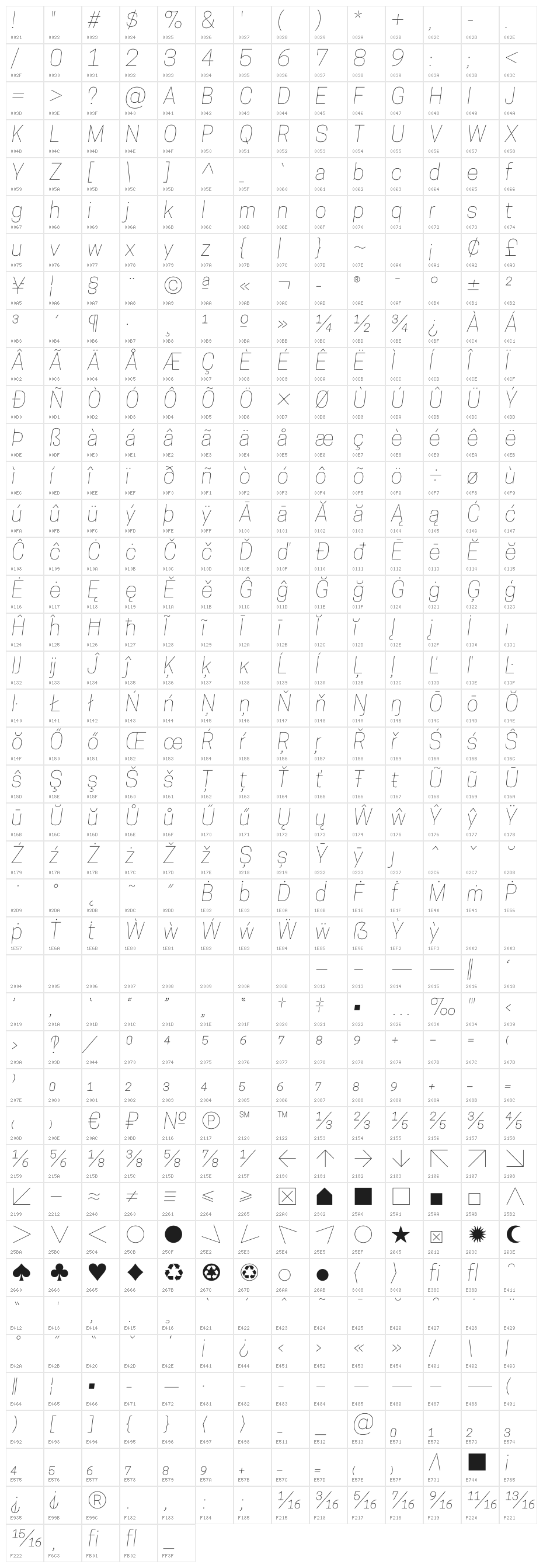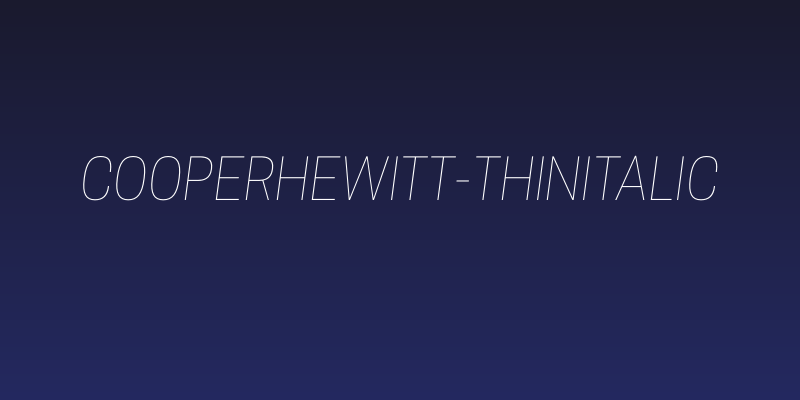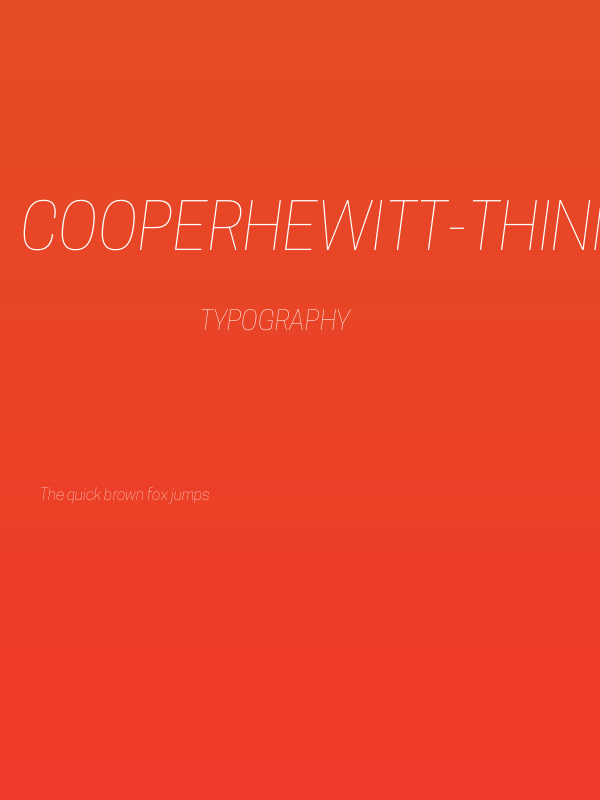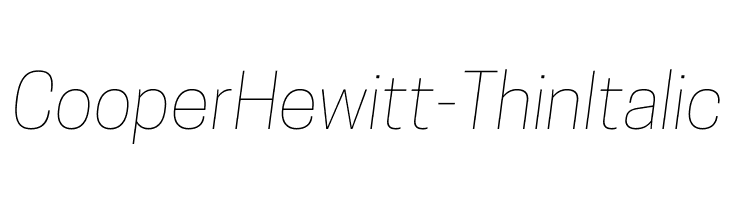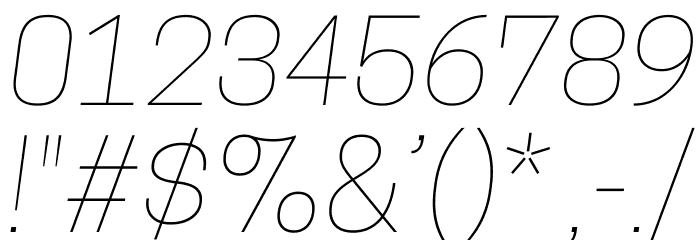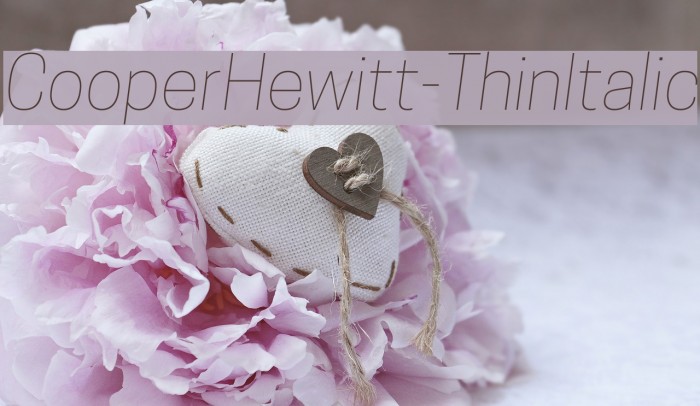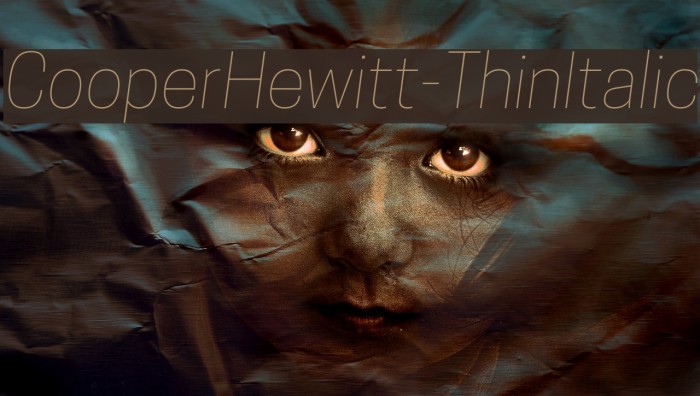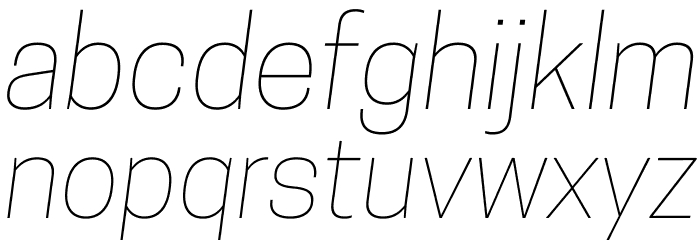
CooperHewitt-ThinItalic Font
✎ Sans Serif
CooperHewitt-ThinItalic Description
This font features a sleek, modern design with a thin, elegant structure. The characters are slightly slanted, giving it an italicized appearance. It maintains a clean and minimalist aesthetic, with smooth curves and a consistent stroke width throughout. The uppercase and lowercase letters are well-proportioned, and the numerals are clear and legible. Special characters are included, maintaining the same thin and refined style. The overall look is sophisticated and contemporary, making it suitable for a variety of design applications.
| Use Case | Headlines, Body text, Logos |
| Proposed Projects | Ideal for modern branding, editorial design, fashion magazines, and minimalist websites. |